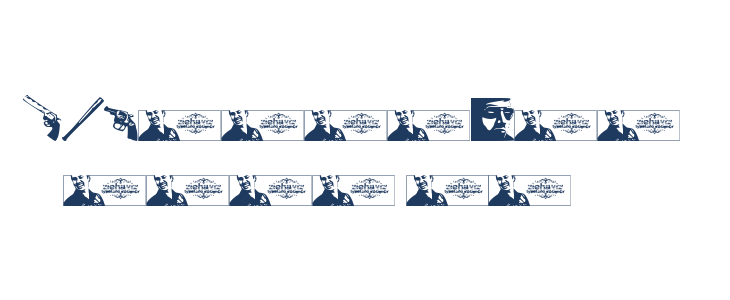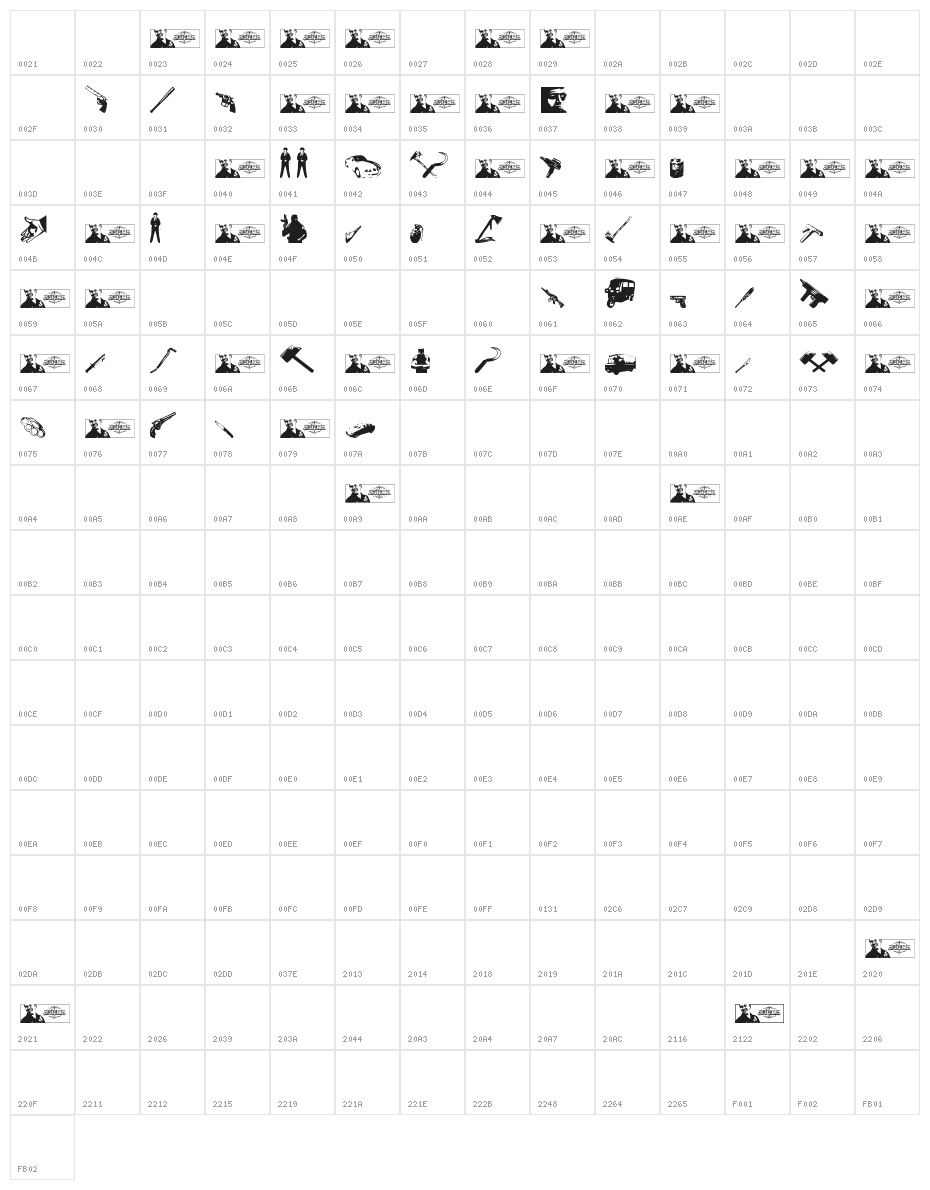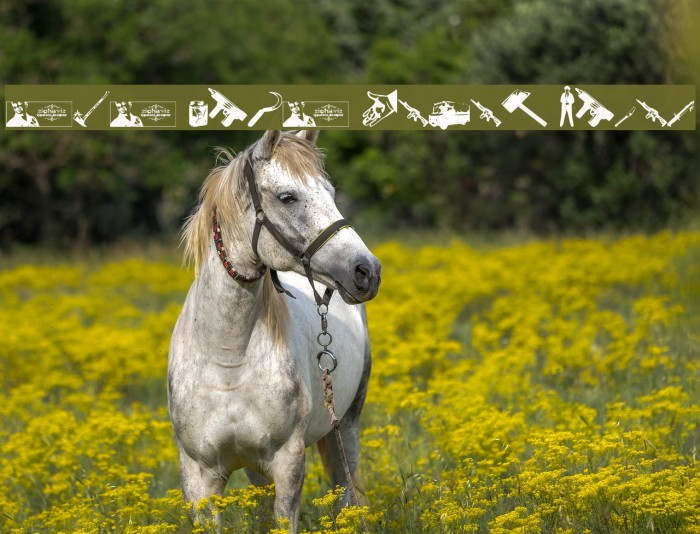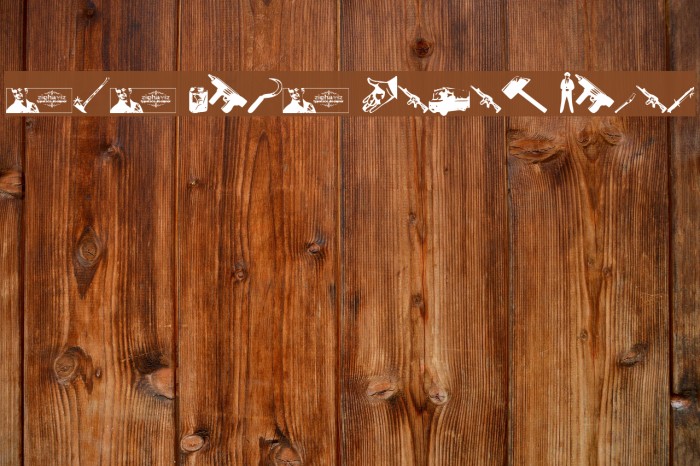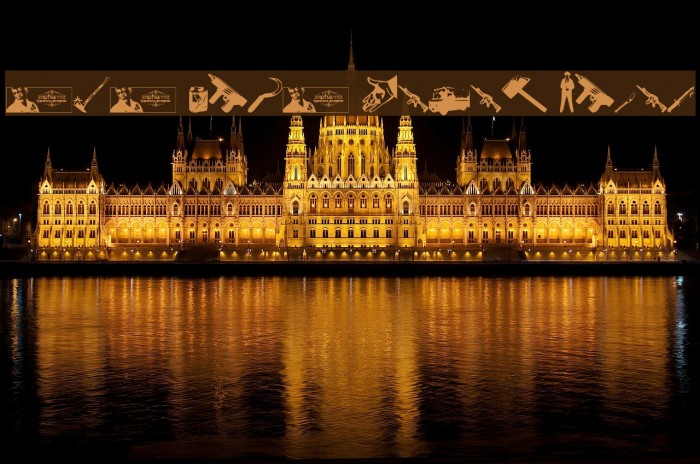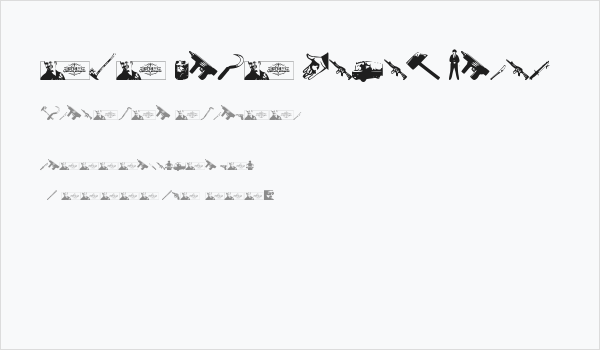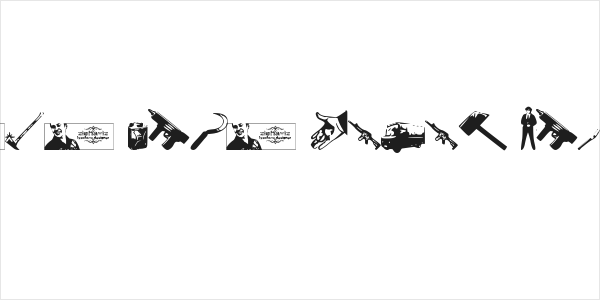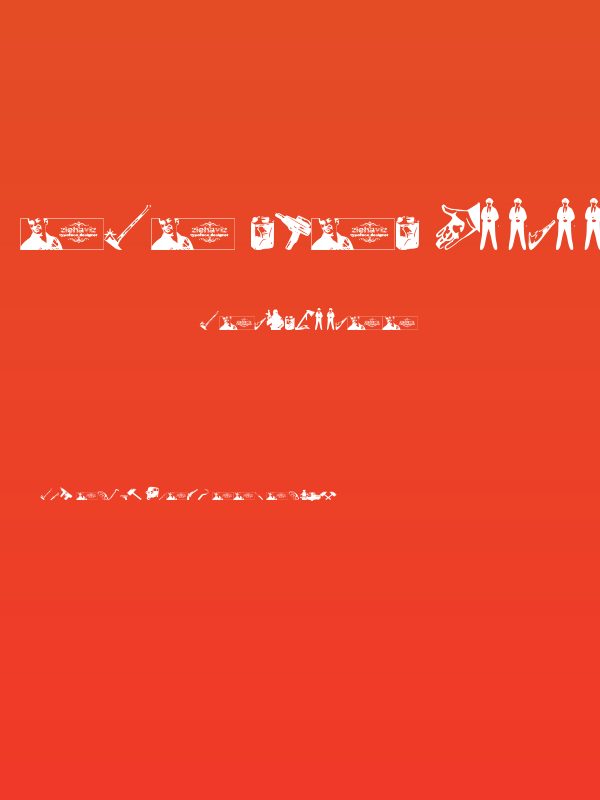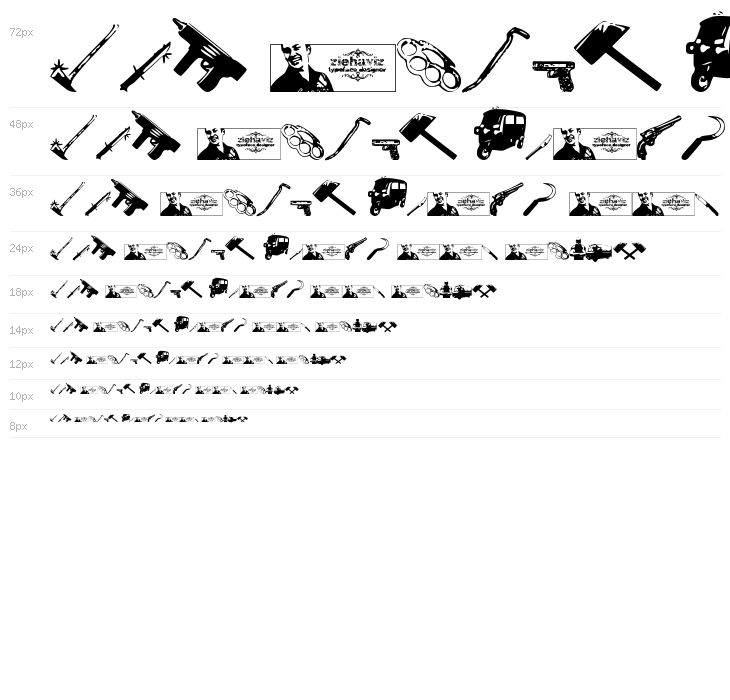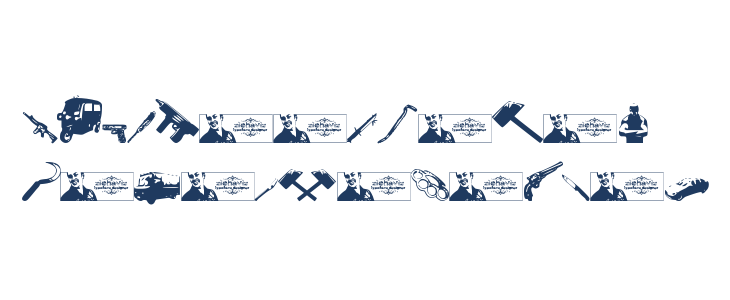
FTF Geng Kapak Merah Font
FTF Geng Kapak Merah Description
This is not a valid font. The image contains a series of icons and illustrations instead of a traditional alphabetic font set. The graphics include various objects and figures, each with a distinct style, but they do not form a coherent typeface suitable for text representation.
| Use Case | Decorative elements, Illustrations |
| Proposed Projects | This set of icons could be used for graphic design projects, thematic illustrations, or as decorative elements in creative works. |